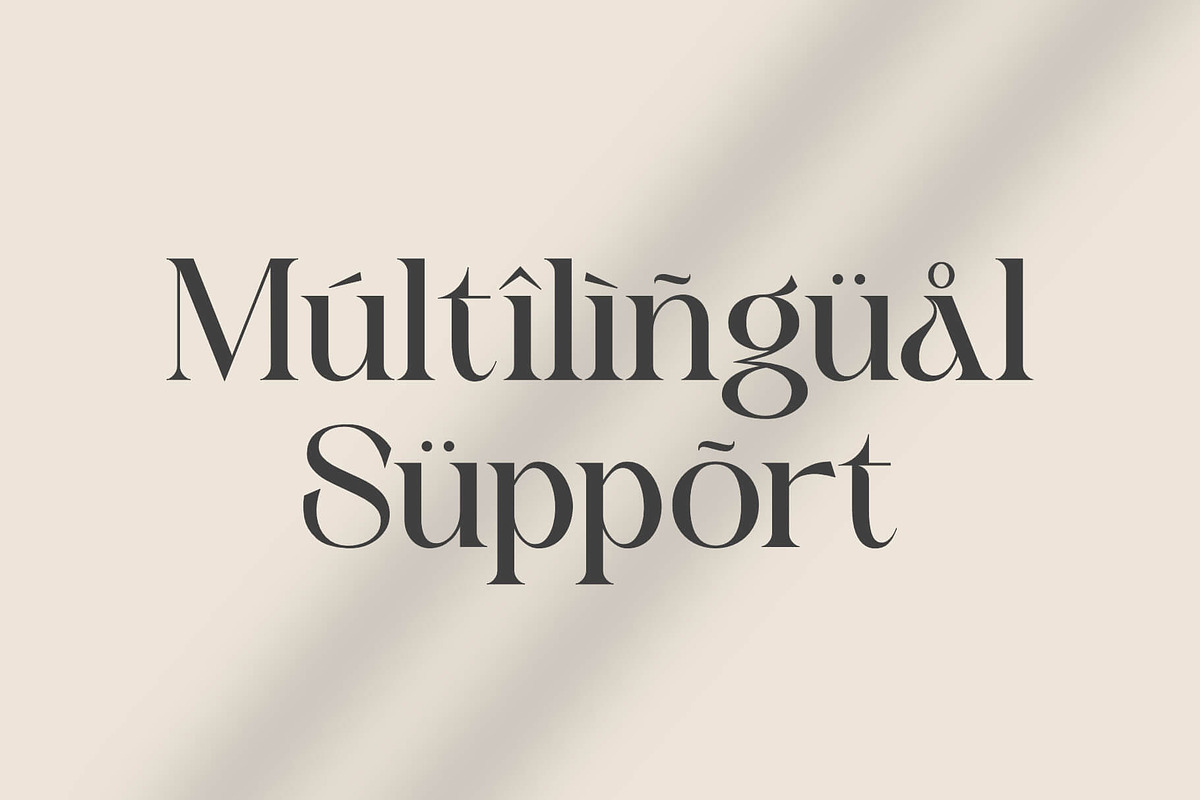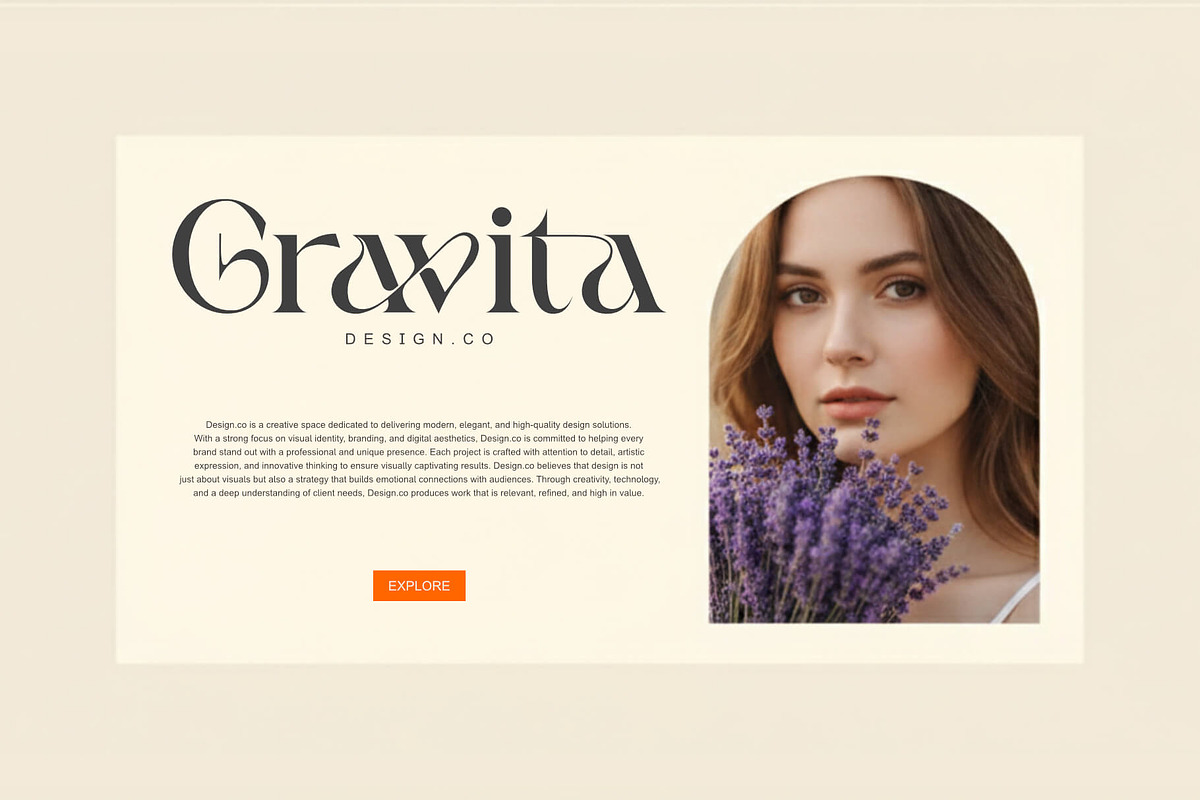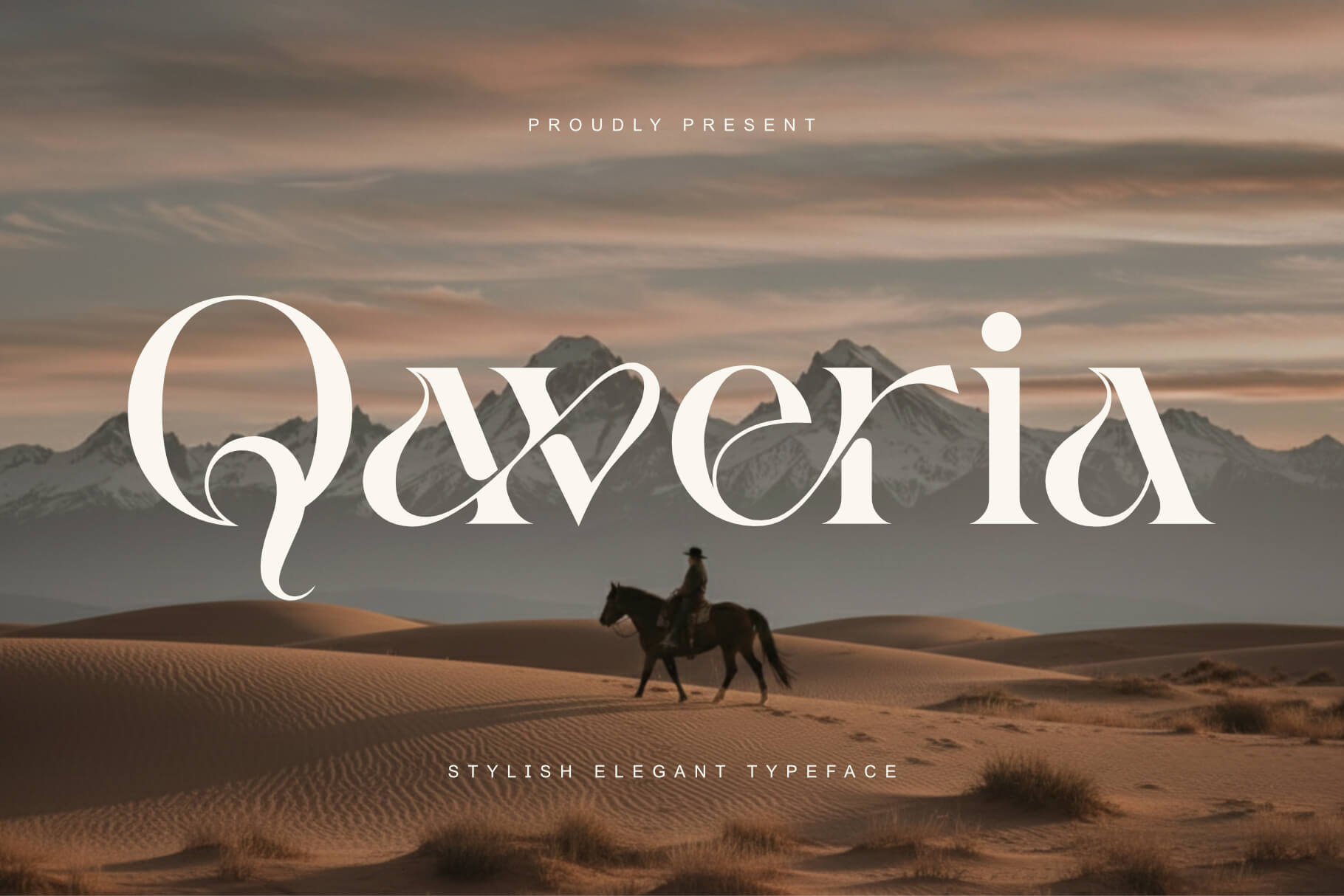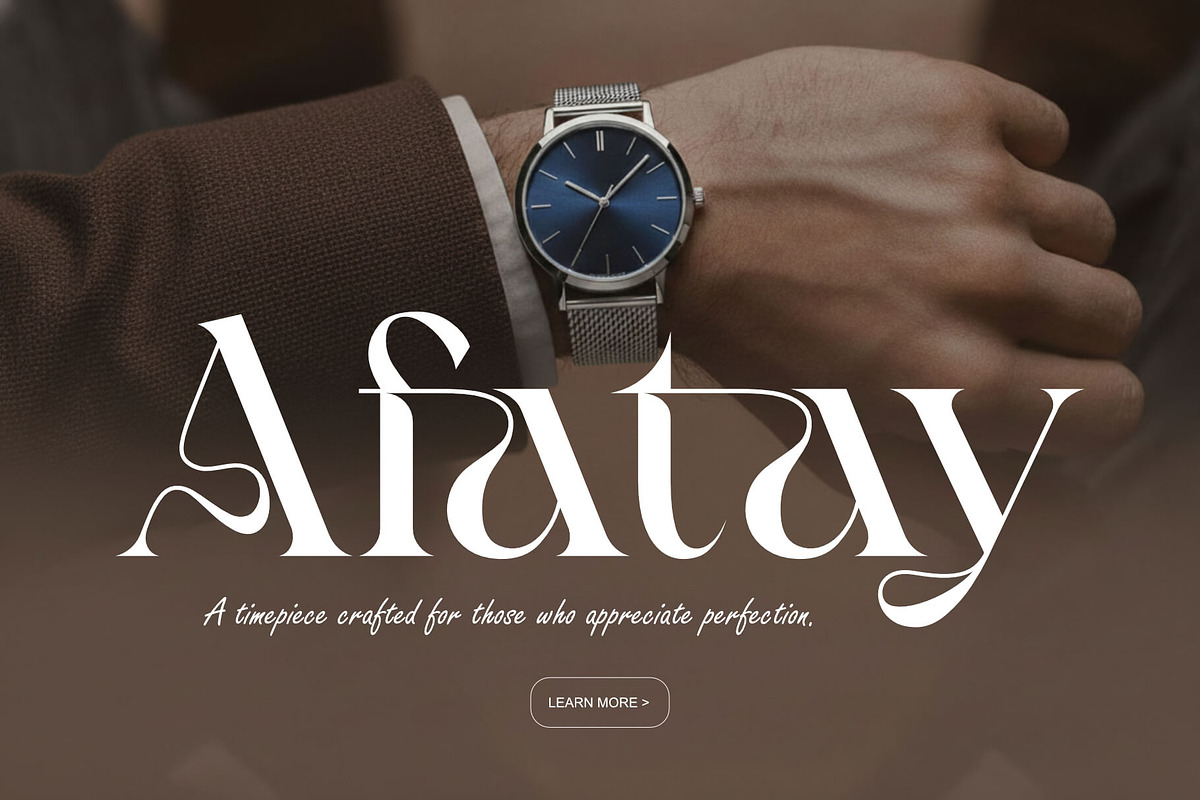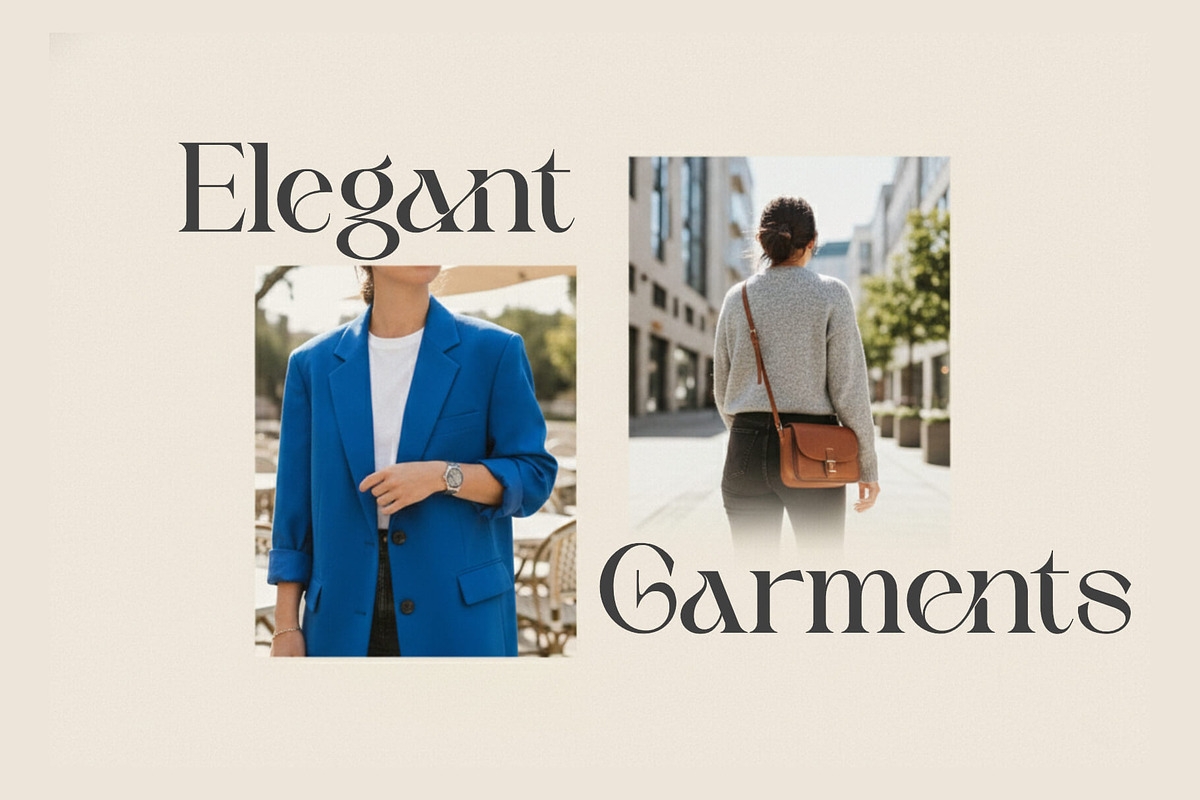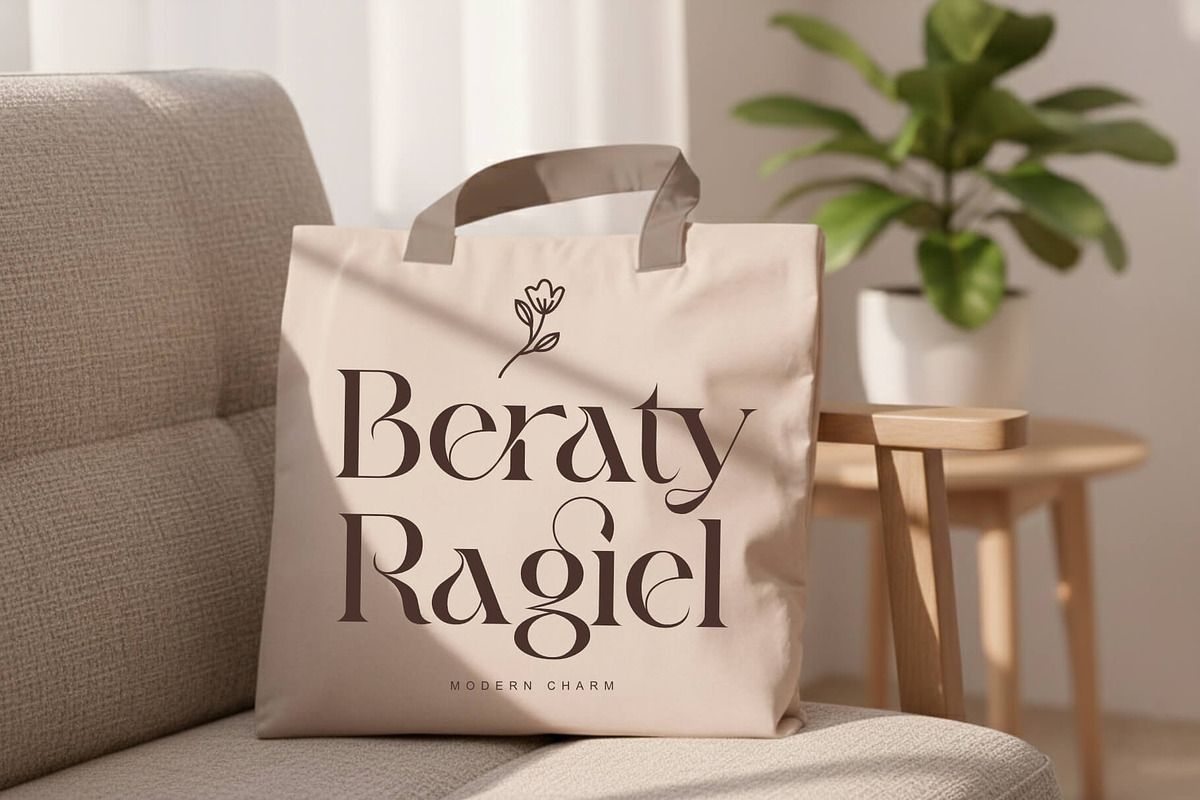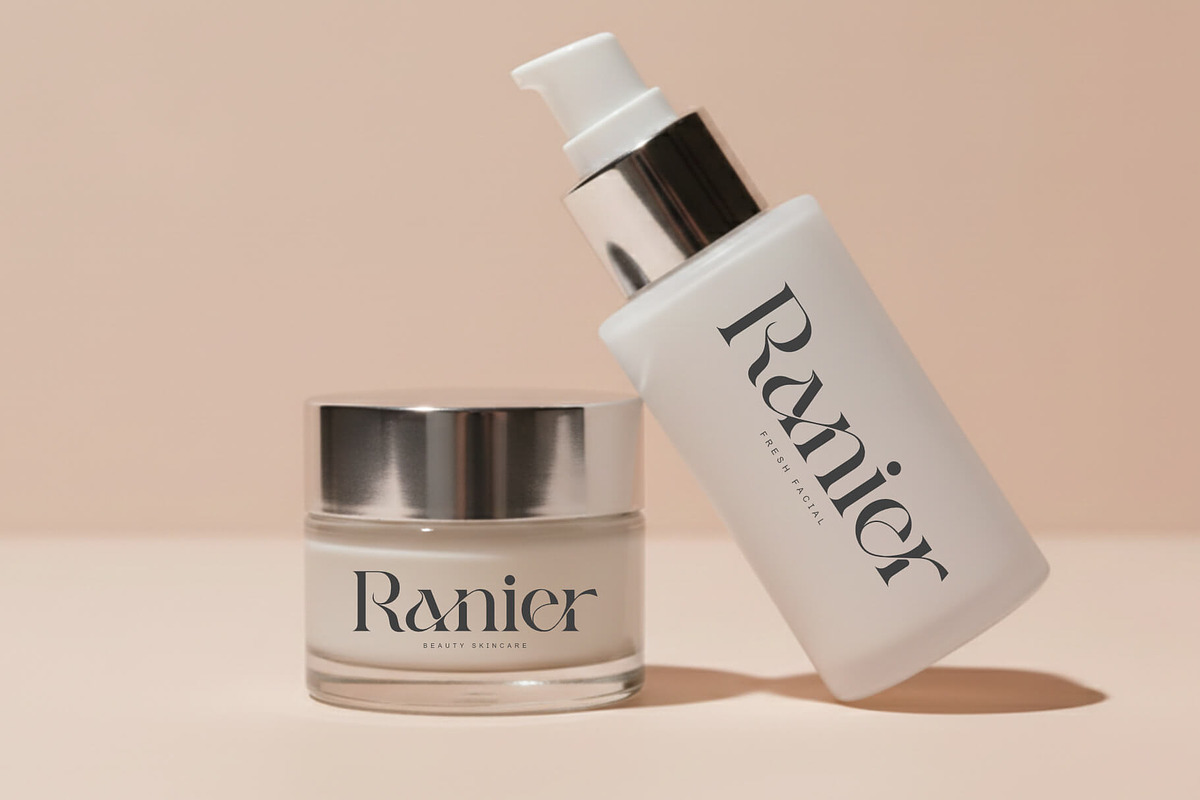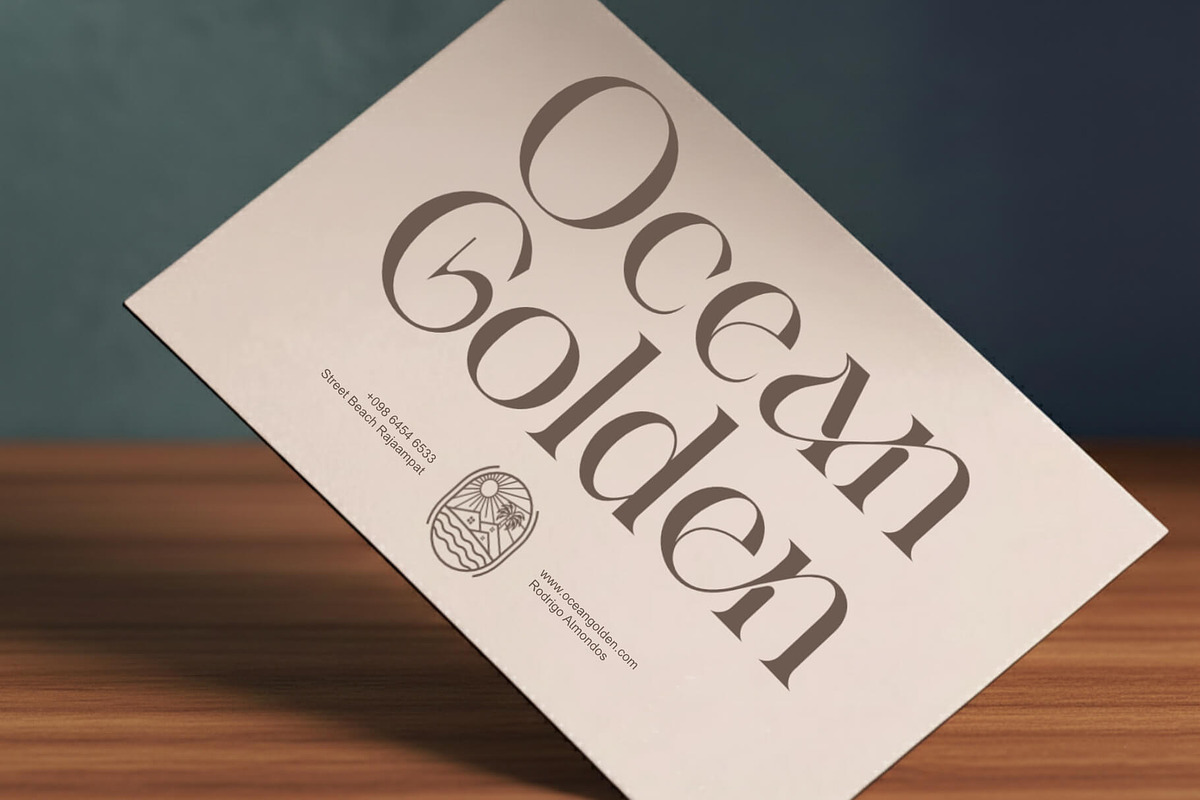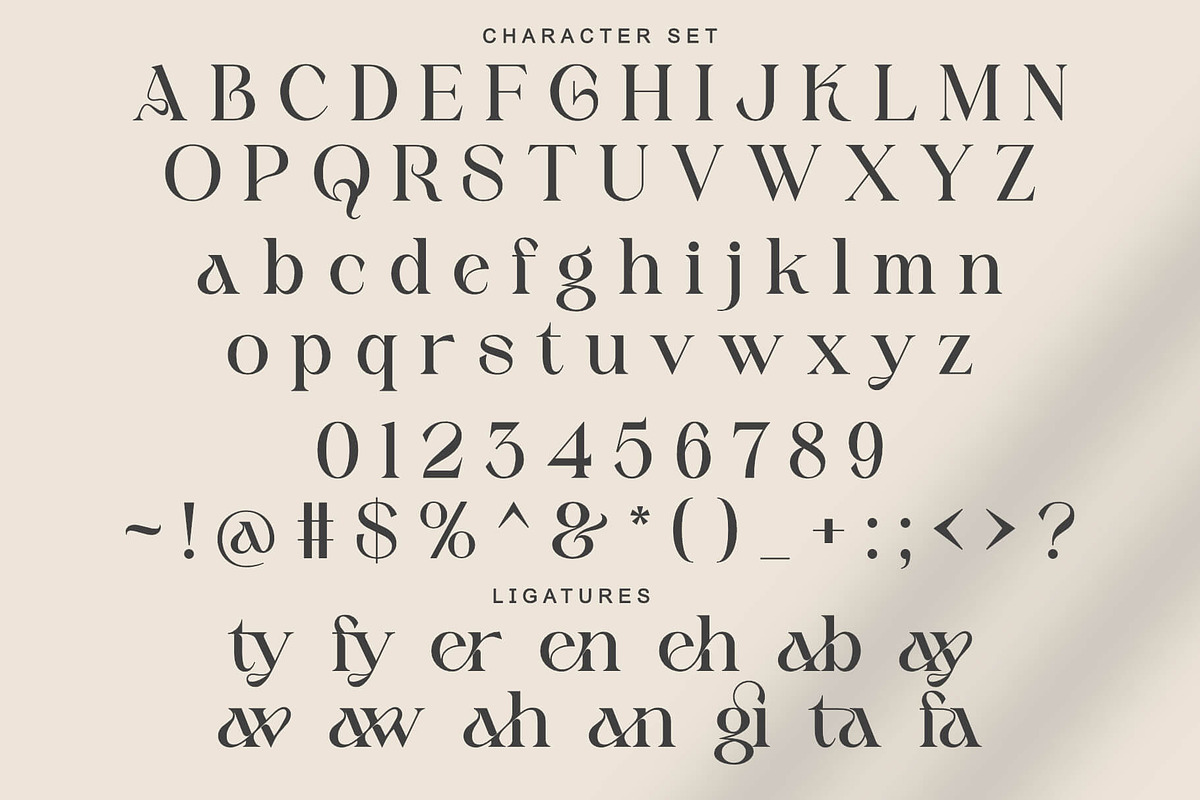
Qaveria - Stylish Elegant Typeface
Qaveria is a stylish and elegant serif typeface crafted with a perfect balance of luxury and artistic expression. Its distinctive curves, refined strokes, and graceful letterforms create a sophisticated visual identity that stands out in any high-end design project. Each character is thoughtfully designed to deliver a timeless aesthetic—modern, expressive, and delicately ornamental.
Qaveria is ideal for premium branding such as fashion, beauty, skincare, jewelry, perfume, editorial layouts, and luxury product packaging. Its unique personality adds a sense of exclusivity, making every word feel more polished and captivating.
With its refined structure and artistic flow, Qaveria elevates logos, magazine titles, wedding invitations, social media graphics, and website headers into elegant visual statements. If you are looking for a typeface that embodies beauty, class, and modern sophistication, Qaveria is the perfect choice.
Qaveria Font Features:
- Elegant Design: Perfect for luxury branding, cinematic posters, and high-end projects.
- Versatile Usage: Ideal for logos, branding, headlines, and stylish designs.
- High Legibility: Ensures your message is communicated effectively with clear and sharp lettering.
- Cinematic Appeal: Combines modern aesthetics with a vintage touch to create a unique and memorable look.
- Inspirational Previews: Includes sample designs to spark your creativity and show the font's potential.
- multilingual support: Allowing seamless use across various languages and global markets. This makes it highly versatile for international branding and worldwide design needs.